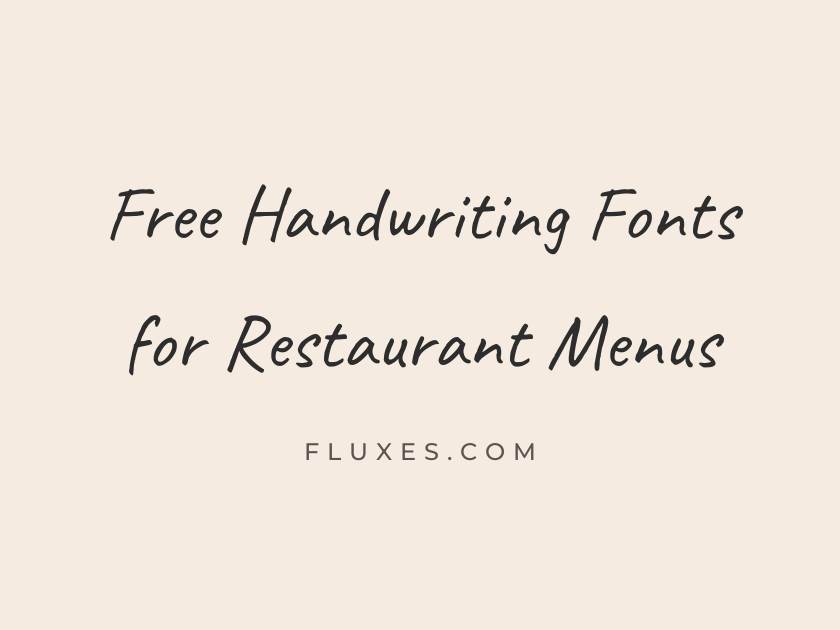
65 Best Free Handwriting Fonts for Restaurant Menus
Handwriting fonts do something a menu badly needs: they make printed type feel personal, as if a chef or server jotted down tonight’s specials just for you. The right script can turn a laminated diner menu into something warm and approachable, or transform a fine-dining wine list into something that feels hand-lettered by a calligrapher. Because these are all free Google Fonts, you can test them directly in a live preview, pair them with a clean sans-serif for prices and descriptions, and download whichever ones fit your restaurant’s personality without touching a licensing fee.
The trick with handwriting fonts for menus is matching the script to the kitchen. A woodfired pizza joint wants something loose and marker-drawn; a tasting-menu restaurant wants a slow, confident cursive that reads like an invitation. What follows covers both ends of that spectrum, plus everything in between: chalkboard casual, brush-pen bold, and old-world formal script.
Caveat is probably the most reached-for handwriting font on Google Fonts, and menus are exactly why. It has the loose, slightly uneven rhythm of a real pen without ever tipping into illegible, which makes it a safe first pick for specials boards and daily-special inserts. It holds up well at both small print sizes and large chalkboard-style headers, which is rarer than it sounds in this category.
Kalam carries a rounder, more relaxed hand than Caveat, closer to a marker than a ballpoint pen. It suits casual seafood shacks and neighborhood cafes where the menu should feel friendly rather than fussy.
Originally drawn to look like an architect’s neat hand-lettering, this font brings a slightly technical, sketched quality that works nicely for menus built around an open-kitchen or workshop aesthetic. It reads as handmade without feeling messy, which makes it a good choice for ingredient lists and short descriptive lines under each dish.
Patrick Hand is tidy enough to use for full paragraphs of menu copy, not just headlines. Its even letterforms make it one of the more legible handwriting fonts on this list at small sizes, so it earns its place on printed takeout menus and daily specials sheets.
Thin and breezy, Shadows Into Light feels like it was scrawled in a moment of good mood. It works best in short bursts: a tagline, a “thank you for dining with us” note at the bottom of the check, or a wine bar’s welcome line.
This is the font that most looks like it was actually written on a chalkboard or whiteboard, thick and bold with a satisfying, slightly blunt stroke. It is a natural fit for burger joints, taco stands, and breweries that lean into a scrappy, hand-lettered sign aesthetic.
Because the strokes are so heavy, keep it to short phrases and headers rather than long descriptions, where it can start to feel cramped.
Bubbly and a little bit young, Indie Flower brings a doodled, notebook-margin charm that suits bakeries, brunch spots, and juice bars more than white-tablecloth dining rooms.
Gochi Hand has a slightly childlike, felt-tip roundness that pairs well with playful, colorful menu designs for noodle bars and casual Asian street food concepts.
Neucha
Neucha was designed with Cyrillic in mind, and it carries a soft, confident cursive that feels European rather than American diner. It is a good option for menus that want a handwritten look without any of the bounce or whimsy found in more casual scripts.
Coming Soon
True to its name, this is a friendly, informal script that works well for “coming soon” signage, seasonal menu teasers, and social posts announcing a new dish.
Handlee
Handlee sits comfortably between neat and casual, legible enough for body copy but relaxed enough to avoid feeling corporate. It is an easy default for family-style restaurants that want warmth without novelty.
Condensed and quick, this font reads like a note scribbled on a coffee shop chalkboard in a hurry. Its narrow width makes it useful for tight menu columns where space is limited.
Reenie Beanie
Reenie Beanie leans casual and a bit retro, evoking the loose scrawl on a diner order pad. It suits classic American diners, drive-ins, and milkshake counters that want a nostalgic feel.
This one genuinely looks like it came from a handwritten recipe card, complete with slightly wobbly, personal letterforms. It is best saved for short, sentimental lines, a family recipe callout or a “made with love since 1988” note, rather than full menu descriptions.
Test any script against your actual paper stock and lighting before printing a full run. What looks crisp on a bright screen can turn muddy on cream cardstock under warm restaurant lighting.